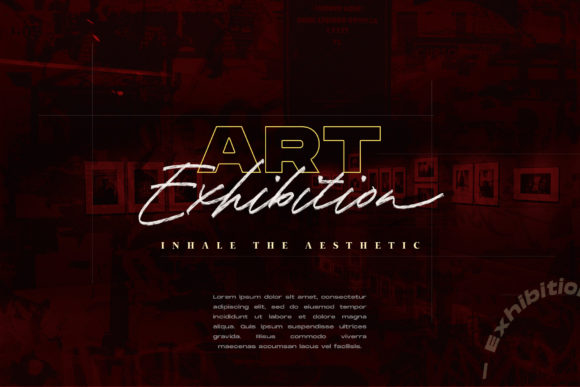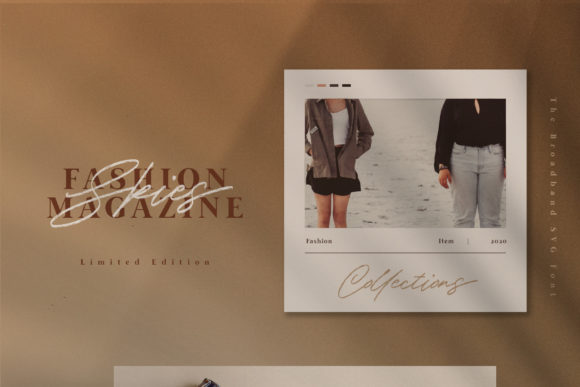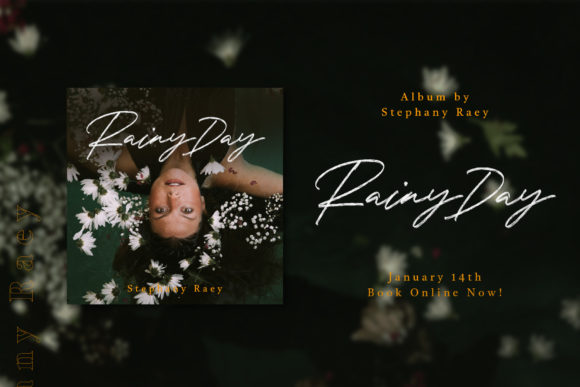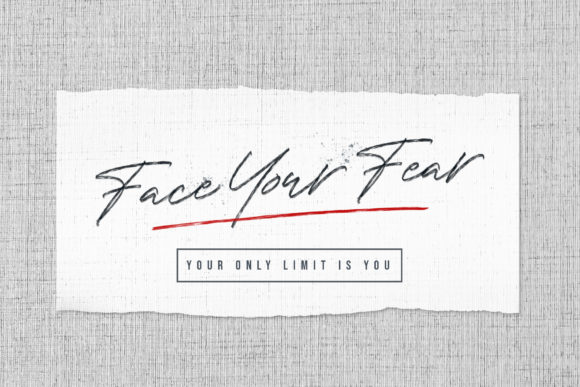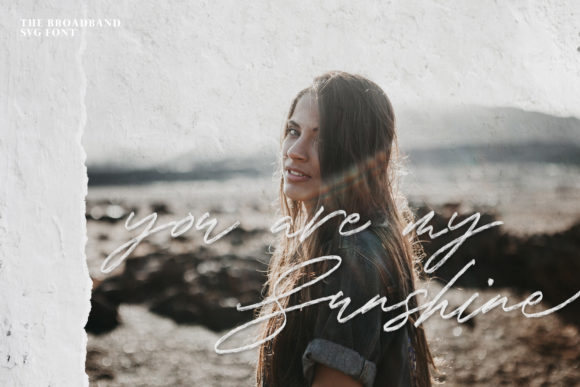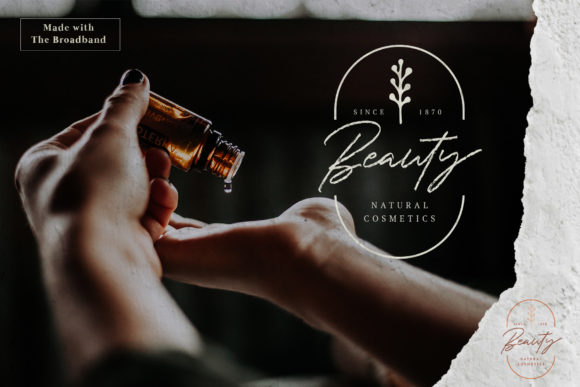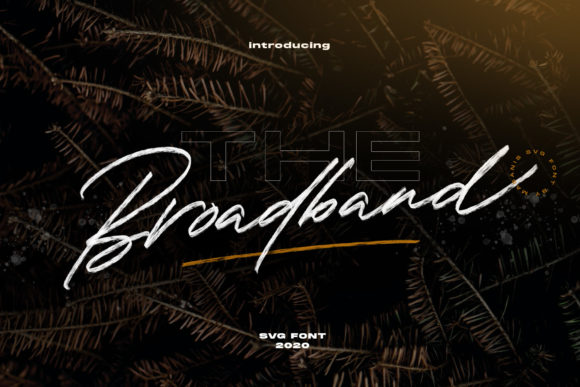
Broadband Font: Elevate Your Designs with Elegance and Charm
In the world of typography, few fonts manage to strike a balance between authenticity and elegance. Broadband Font is one such exceptional script that has captured the hearts of designers and crafters alike. With its incredibly smooth and charming appearance, Broadband Font is the perfect choice for those looking to add a touch of sophistication to their designs.
The Unique Charm of Broadband Font
Broadband Font boasts a distinctive charm that sets it apart from other scripts. Its authentic yet elegant feel makes it an ideal choice for a wide range of design projects, from branding and advertising to packaging and digital media. The font’s unique character lies in its ability to convey a sense of luxury and refinement, while still feeling approachable and relatable.
Key Features of Broadband Font
• Smooth and Charming Appearance: Broadband Font features a remarkably smooth and charming appearance that adds a touch of elegance to any design.
• Authentic yet Elegant: The font strikes a perfect balance between authenticity and elegance, making it suitable for a wide range of design projects.
• Highly Versatile: Broadband Font is highly versatile and can be used in various design contexts, from digital media to print materials.
• Easy to Read: The font’s clear and readable design ensures that your message is conveyed effectively, without compromising on style.
Inspiration and Design Ideas
Broadband Font is more than just a font – it’s a design inspiration. Its unique charm and elegance can spark creativity and help you turn any design idea into a true standout. Here are a few design ideas to get you started:
• Branding and Logo Design: Use Broadband Font to create a luxurious and sophisticated brand identity that sets you apart from the competition.
• Wedding and Event Design: Add a touch of elegance to your wedding or event designs with Broadband Font’s beautiful script.
• Packaging Design: Elevate your packaging design with Broadband Font’s unique charm and make your products stand out on store shelves.
• Digital Media: Use Broadband Font to create stunning digital media, such as social media graphics, blog headers, and more.
Tips for Using Broadband Font
To get the most out of Broadband Font, here are a few tips to keep in mind:
• Pair with Neutral Backgrounds: Pair Broadband Font with neutral backgrounds to make it stand out and showcase its elegance.
• Experiment with Colors: Experiment with different colors to find the perfect match for your design and brand identity.
• Use in Combination with Other Fonts: Use Broadband Font in combination with other fonts to create a unique and visually appealing design.
Broadband Font is an exceptional script that offers a unique blend of authenticity and elegance. With its smooth and charming appearance, this font is sure to elevate your designs and make them stand out. Whether you’re a designer, crafter, or simply someone looking for a beautiful font, Broadband Font is an excellent choice. So why wait? Get inspired by its unique charm and turn your design ideas into true standouts.